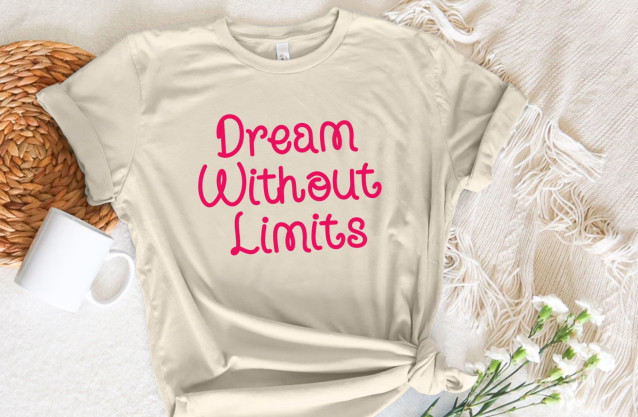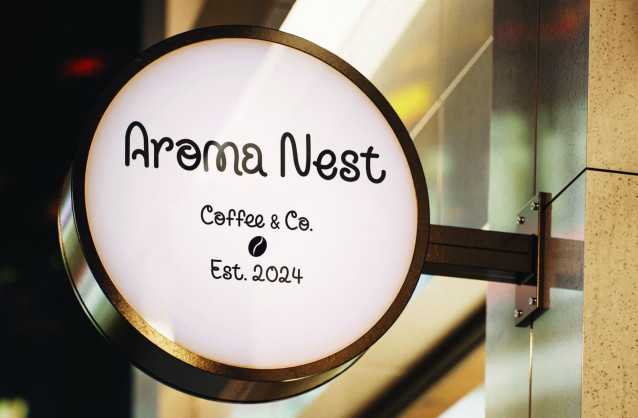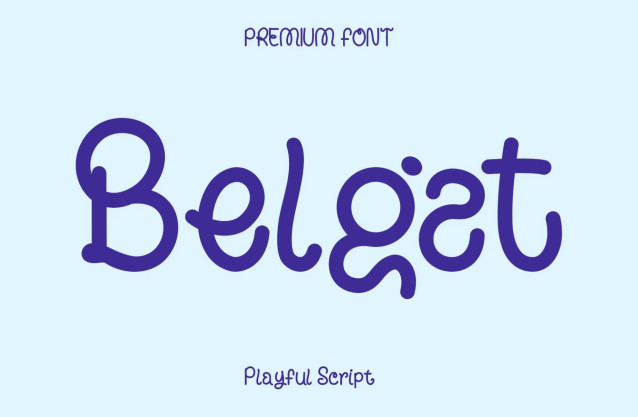
Belgat – Playful Display Script Font
Belgat is a playful script font featuring cute handcrafted letterforms, smooth curves, and a cheerful personality. Perfect for children’s products, branding, logos, packaging, invitations, social media graphics, greeting cards, posters, quotes, and fun creative projects. Includes multilingual support, numbers, punctuation, and ligatures to help create unique typography designs.
• full punctuation
• multilingual support
• Full Ligatures